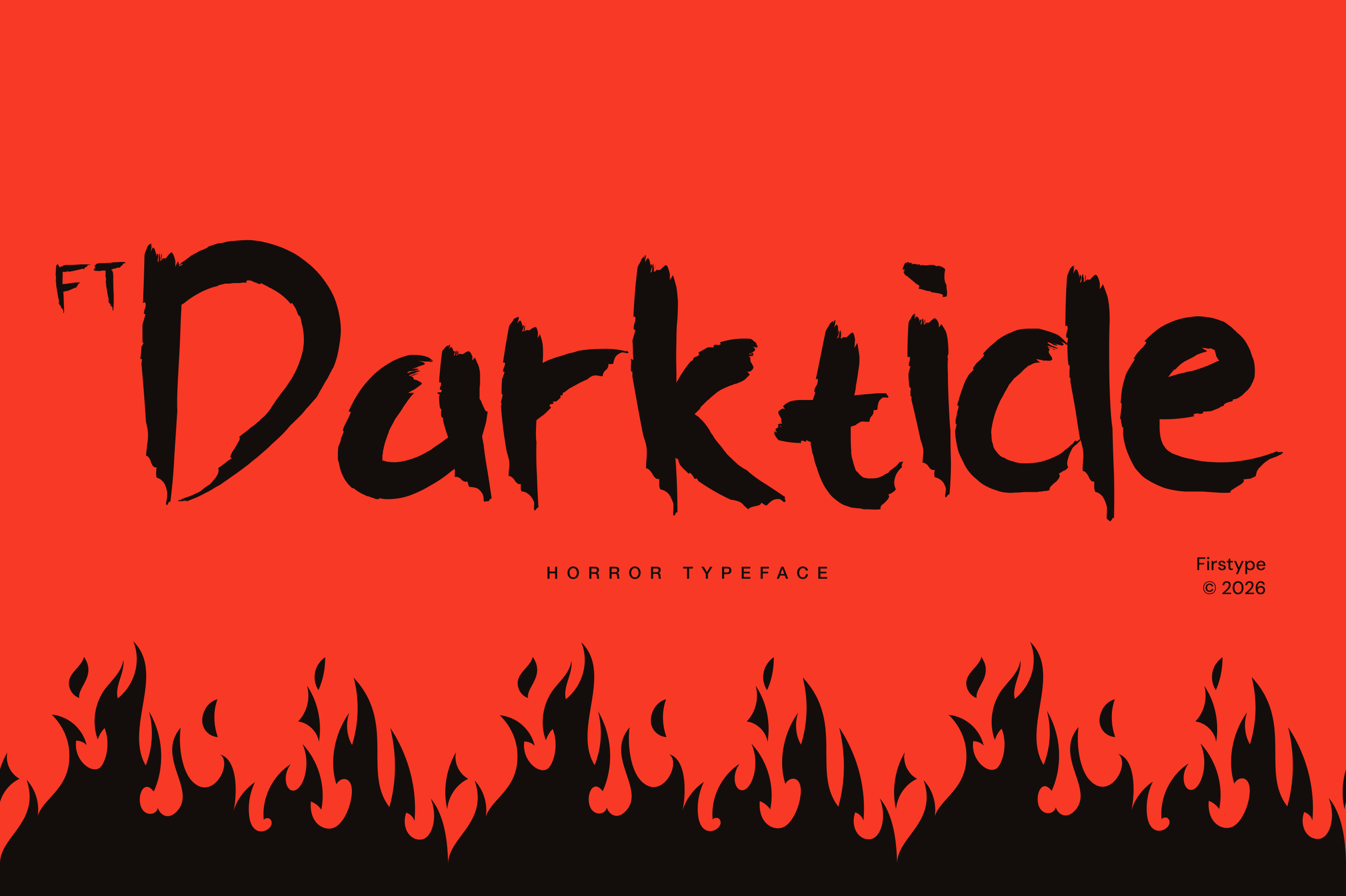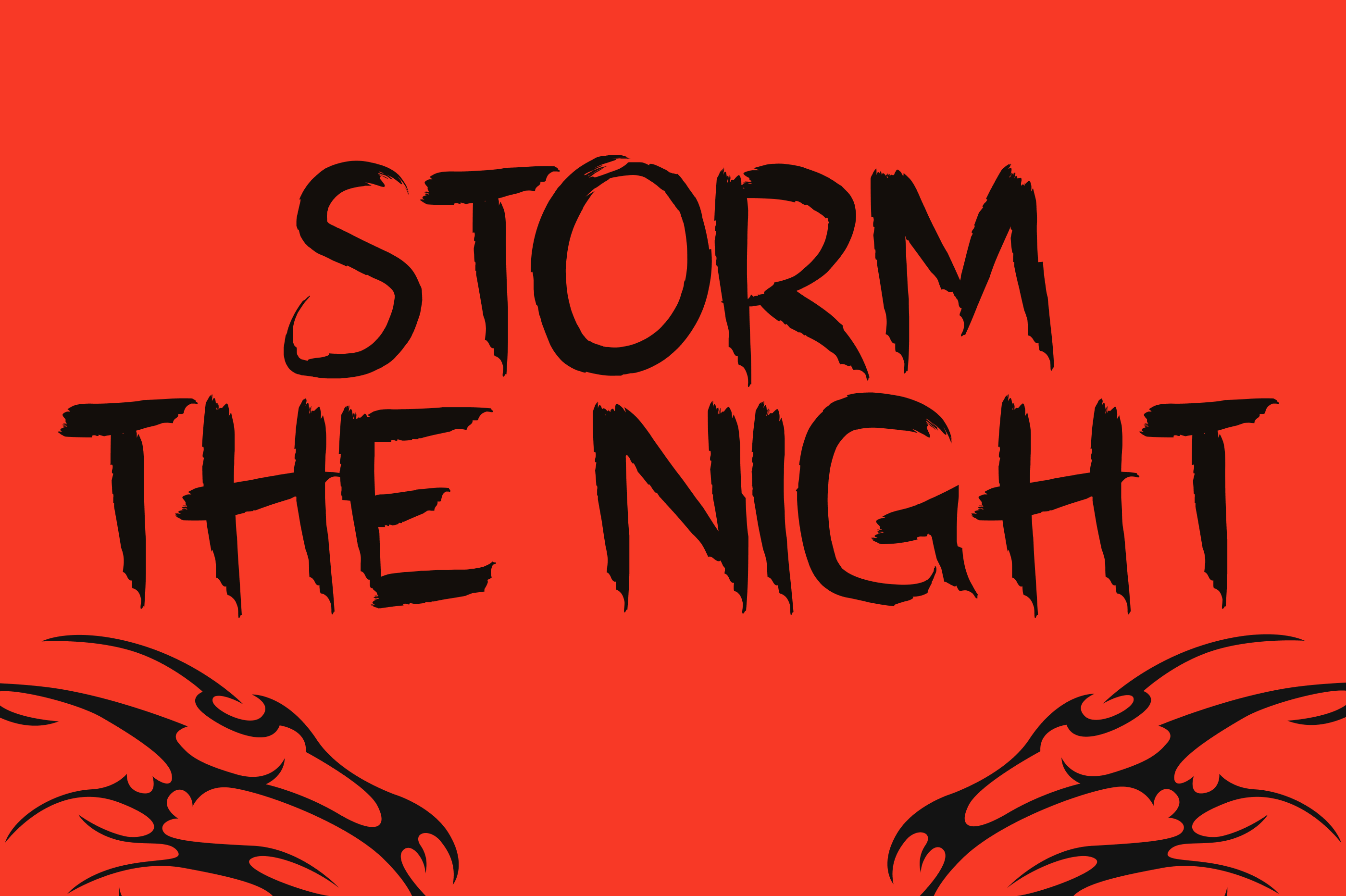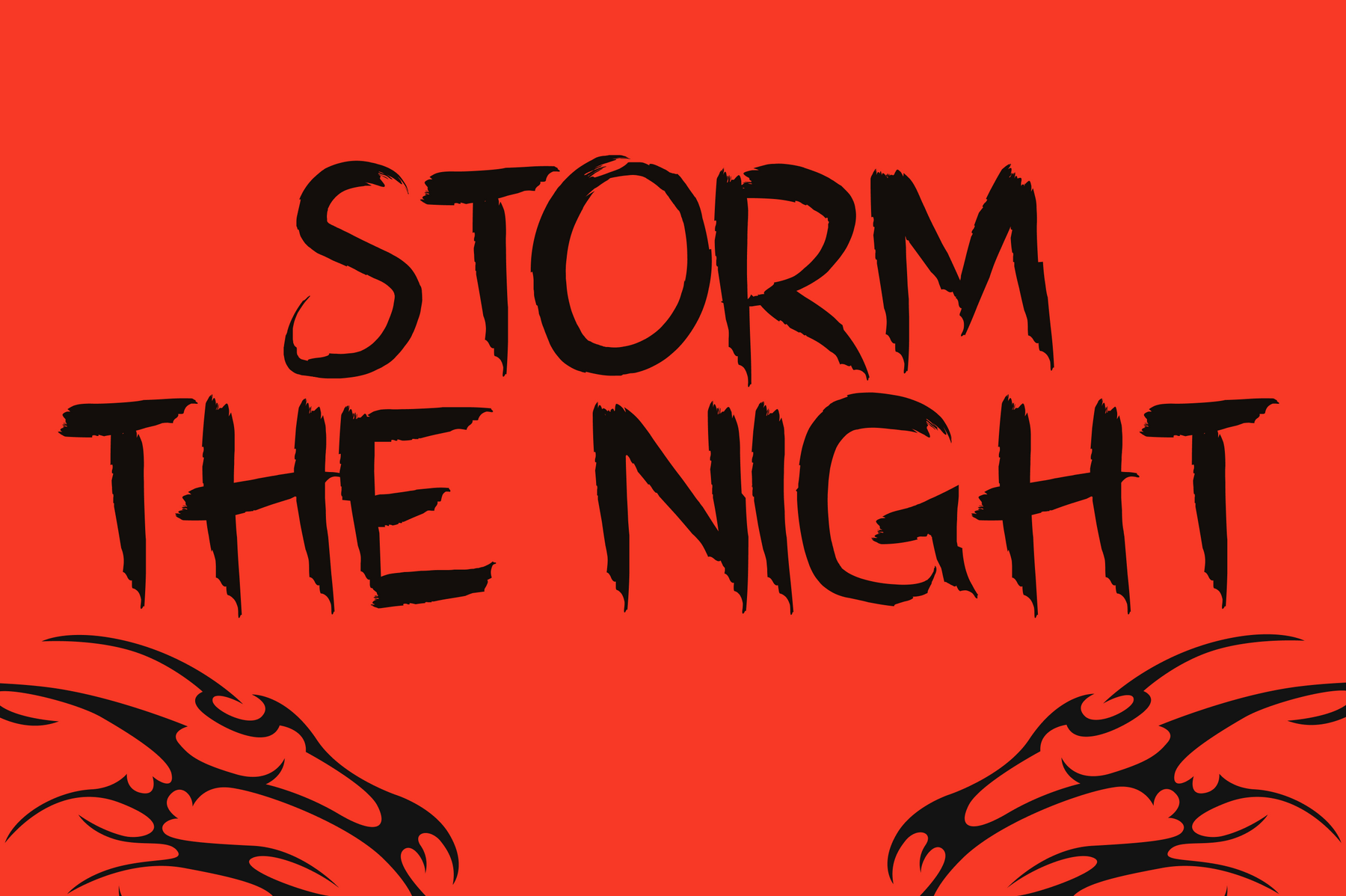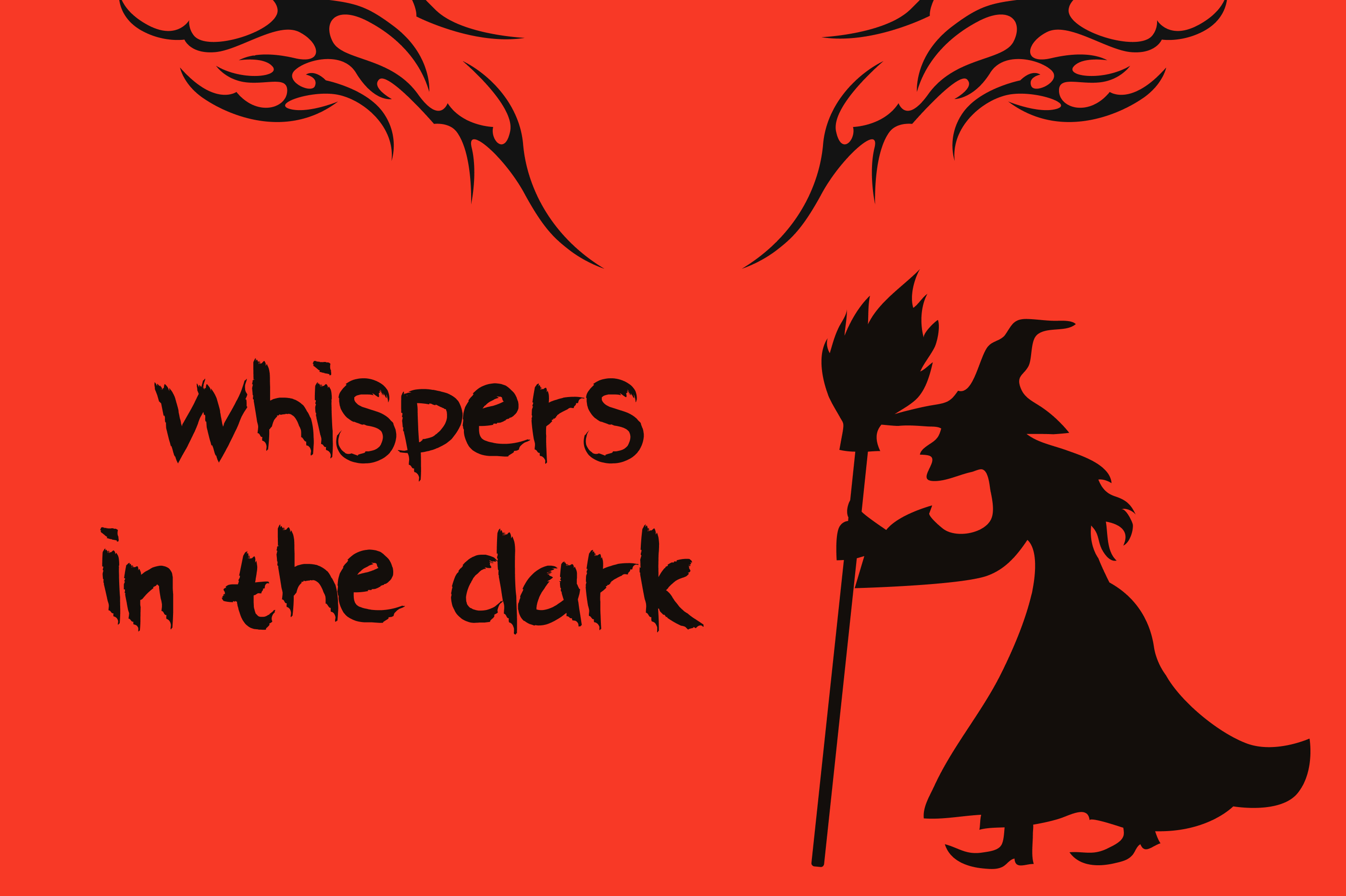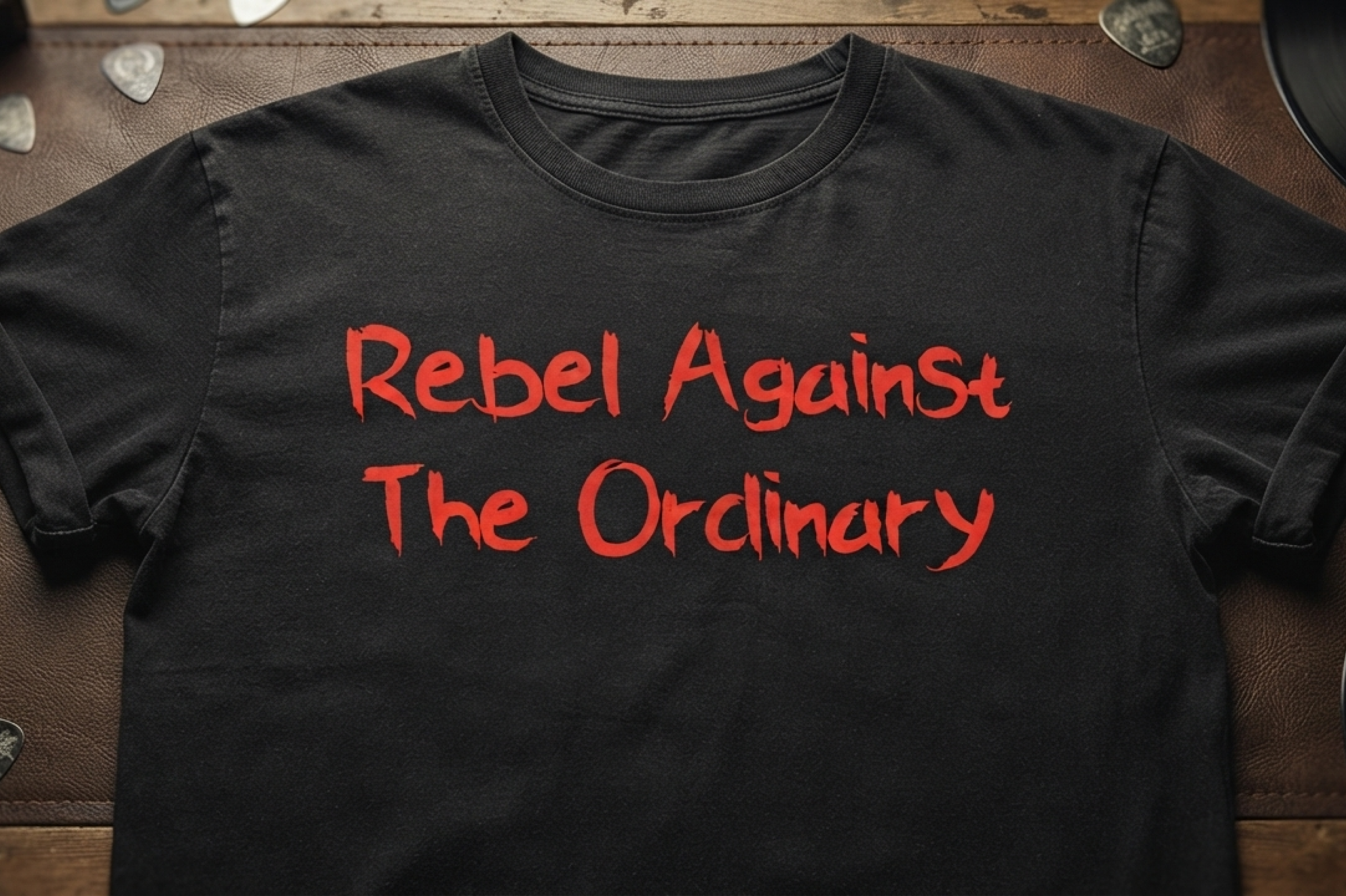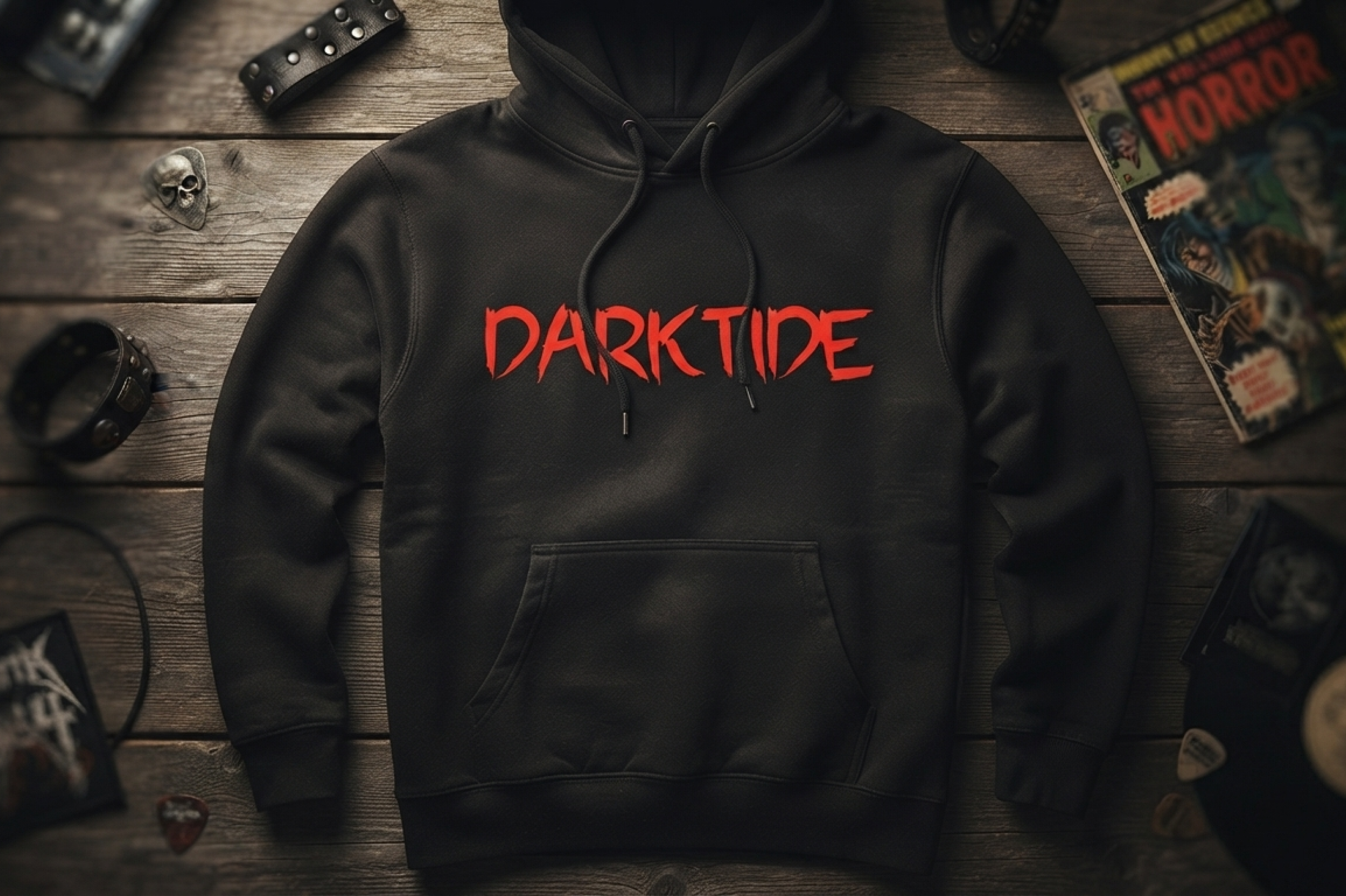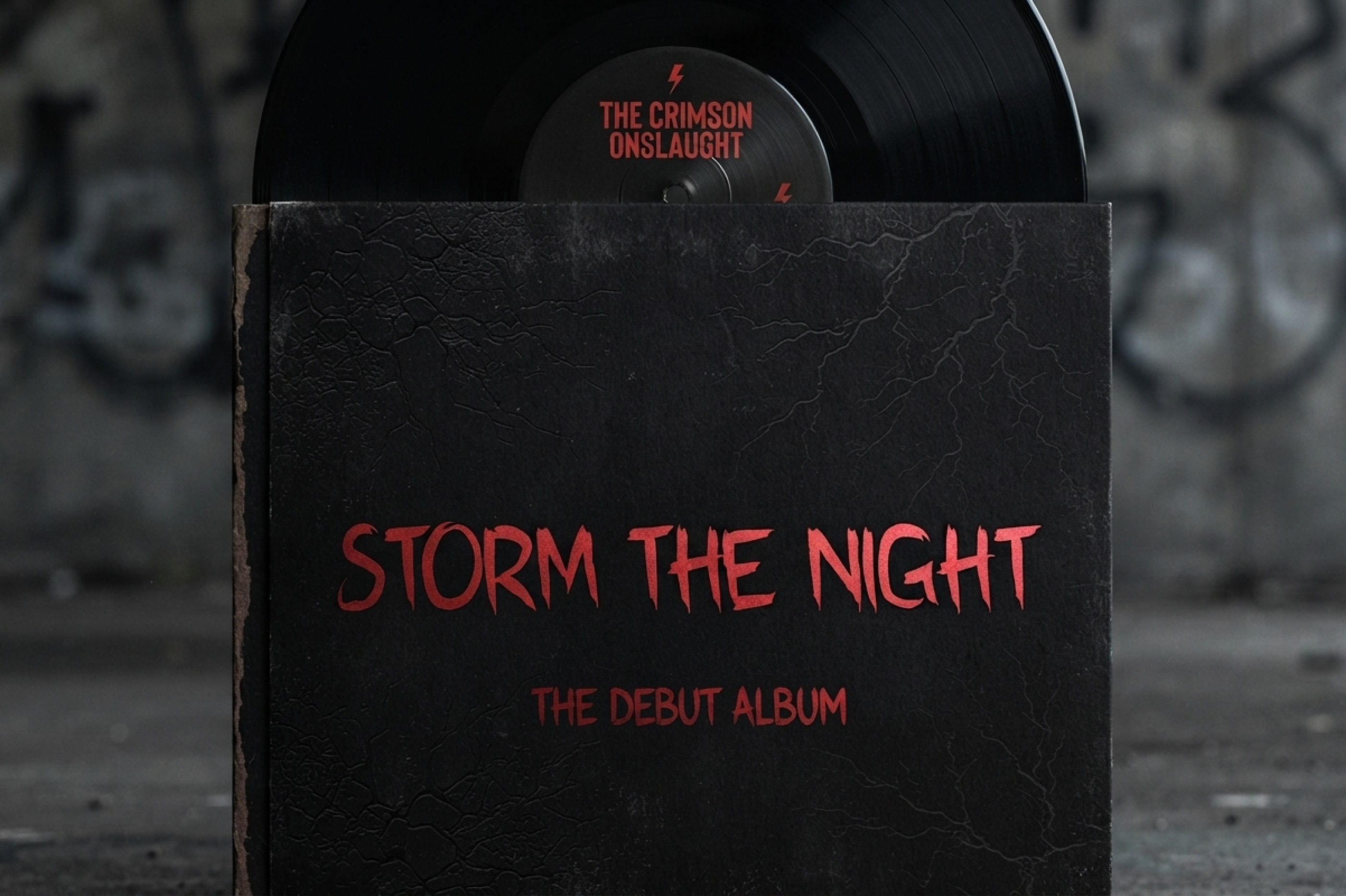
FT Darktide created by Firstype Studio is a brutal, high-impact horror typeface crafted to unleash a grim and terrifying aesthetic. Designed with slashed, frantic brush strokes and an unsettling structure, FT Darktide captures the raw, spine-chilling essence of horror culture, dark metal music, and Halloween-themed artistry.
Whether you are designing movie titles, haunting book covers, extreme apparel, or heavy-hitting event posters, FT Darktide delivers a menacing visual presence that demands attention. Its jagged, blood-curdling texture brings an intense, dark energy to every single headline.
Horror Brush Aesthetic: Jagged, frantic, and slashed brush lines that evoke pure terror and chaos.
High-Impact Display: Engineered to command absolute attention on dark backgrounds, posters, and horror merchandise.
Versatile Terror: Perfect for horror film titles, Halloween branding, metal music art, and edgy streetwear.
FT Darktide Display Font: A powerful, aggressive horror-style typeface.
Character Set: Uppercase, numerals, and essential punctuation.